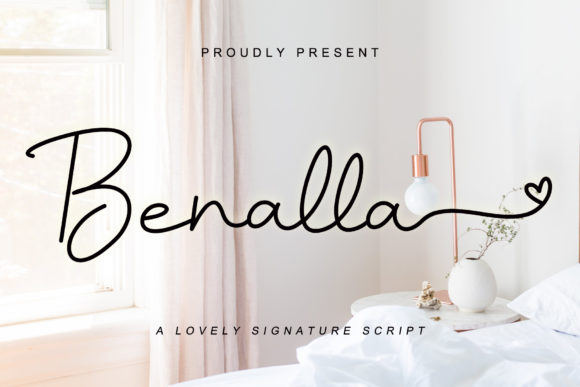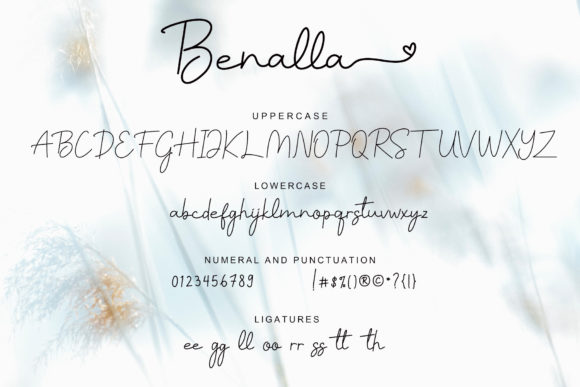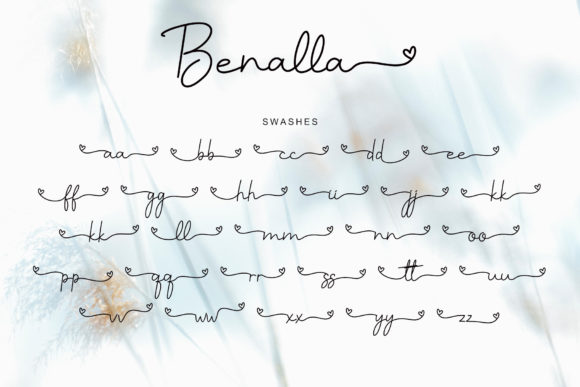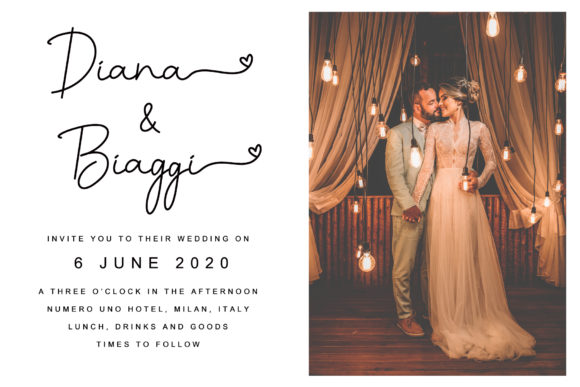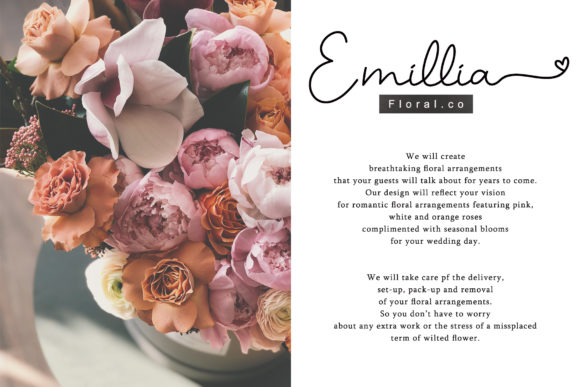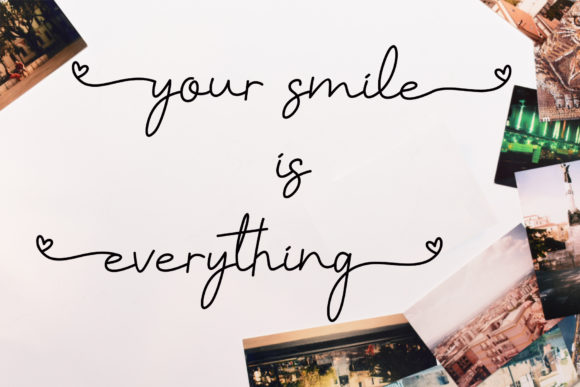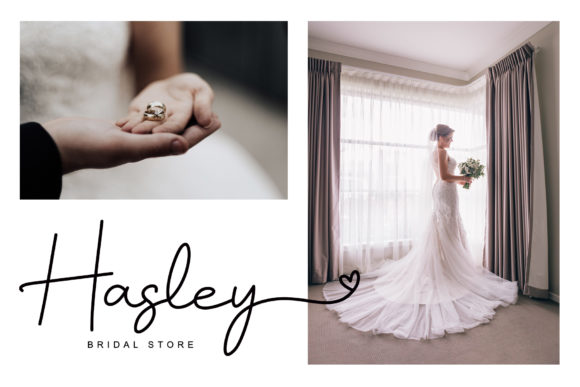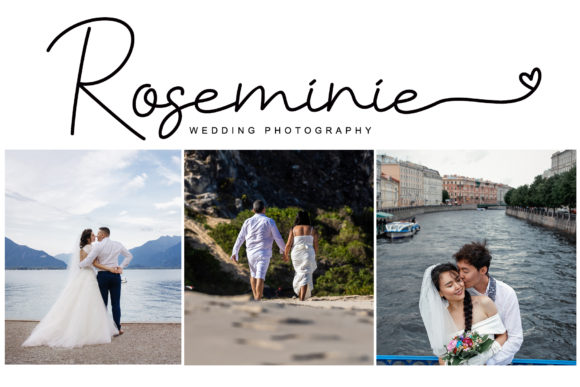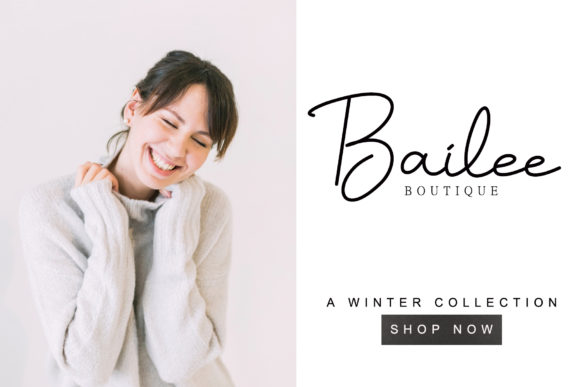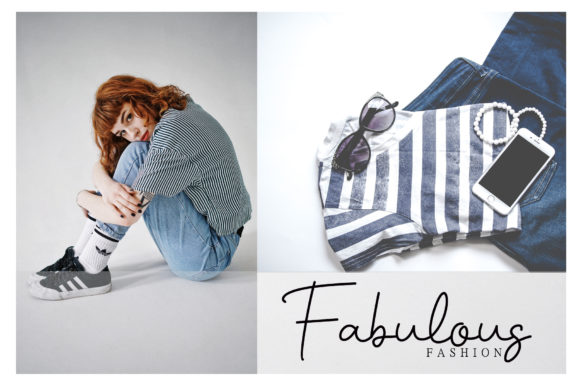
Benalla Font
About Benalla Font
Benalla is a beautiful, elegant, yet casual and simple font script featuring a natural look & feel. It has beautiful swashes and ligatures and it’s perfect for logos, wedding invitations, posters, social media posts, signatures, quotes and much more!